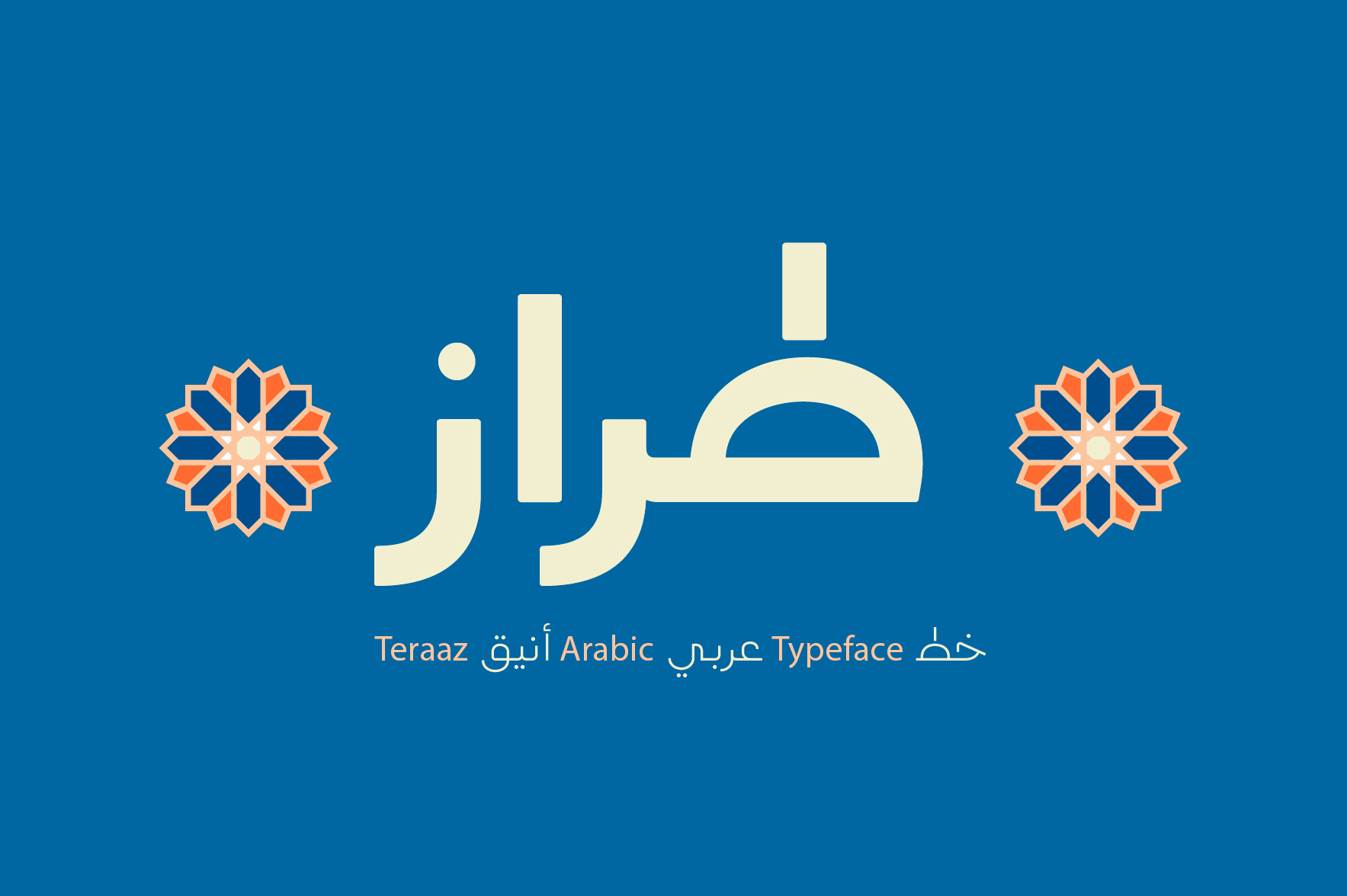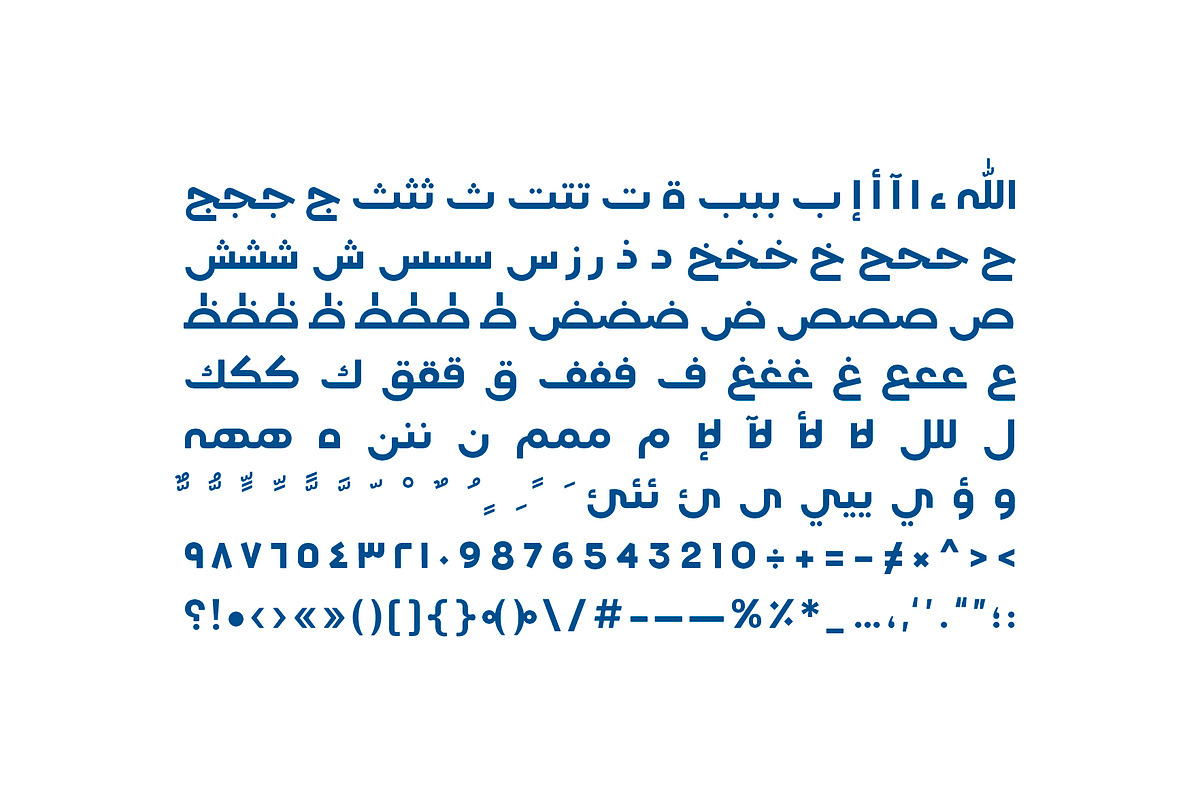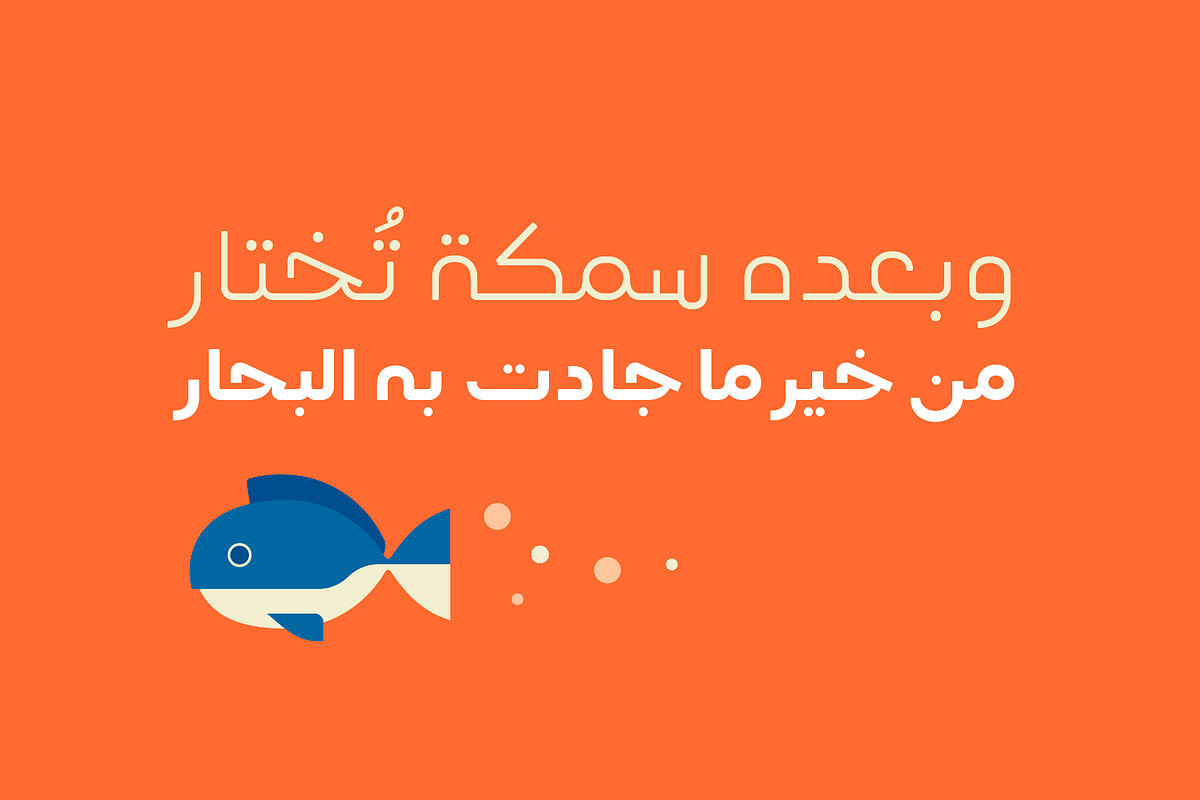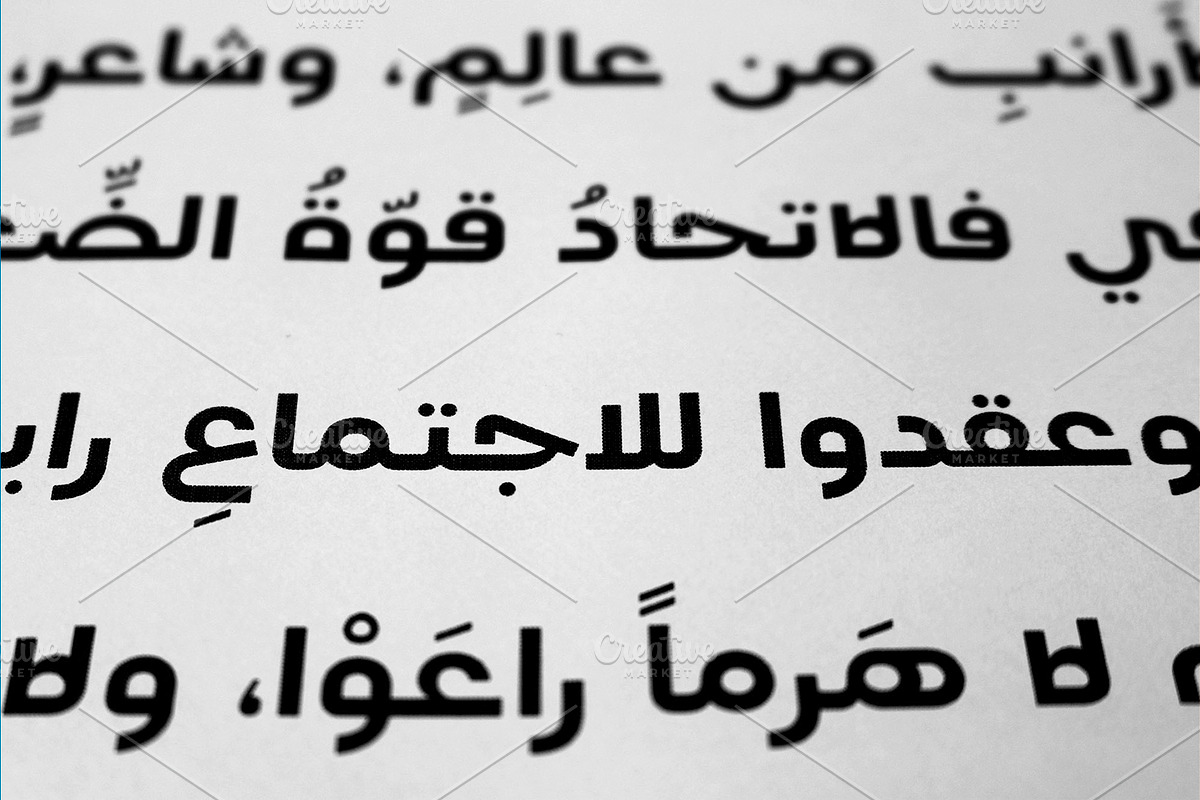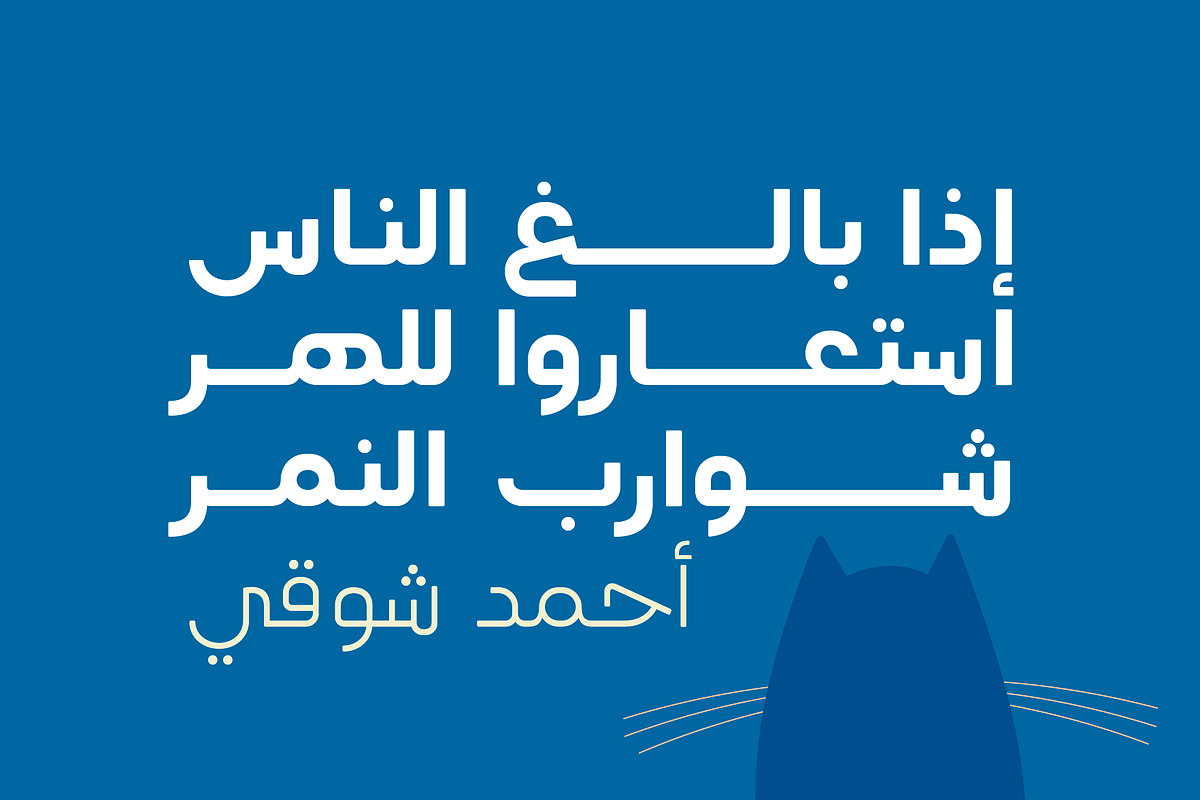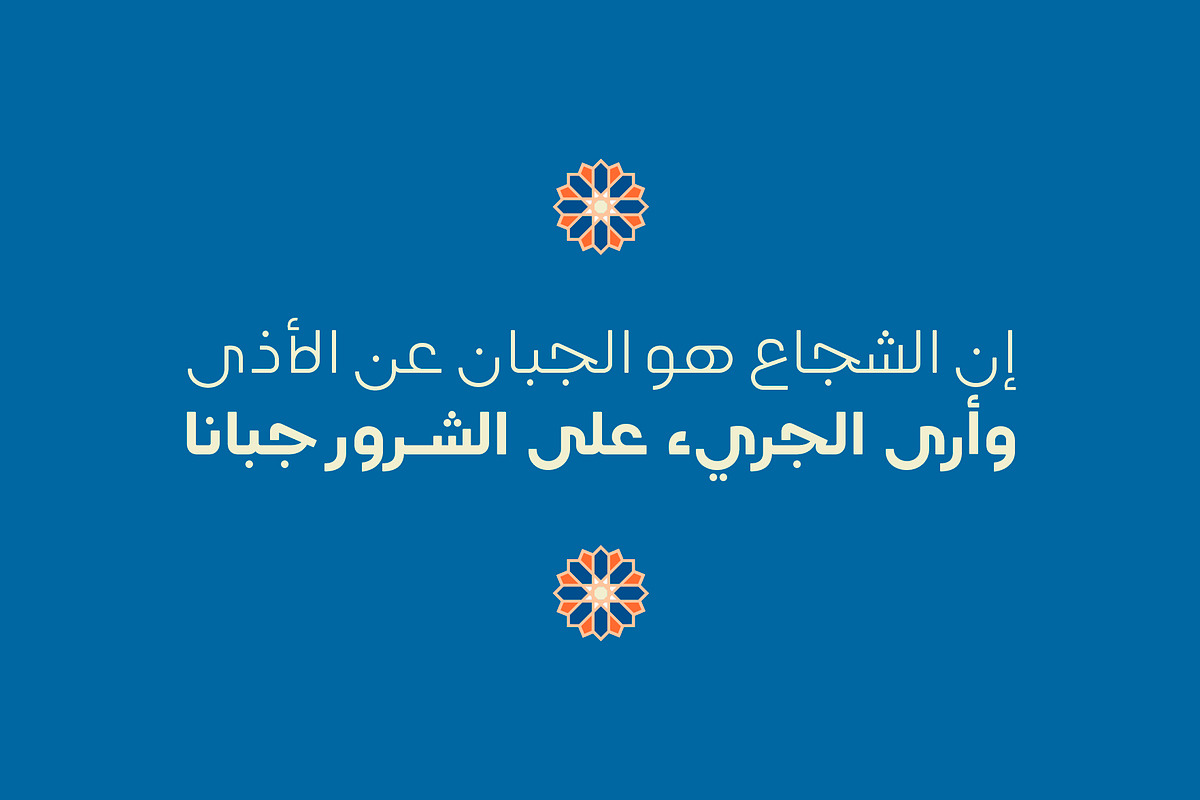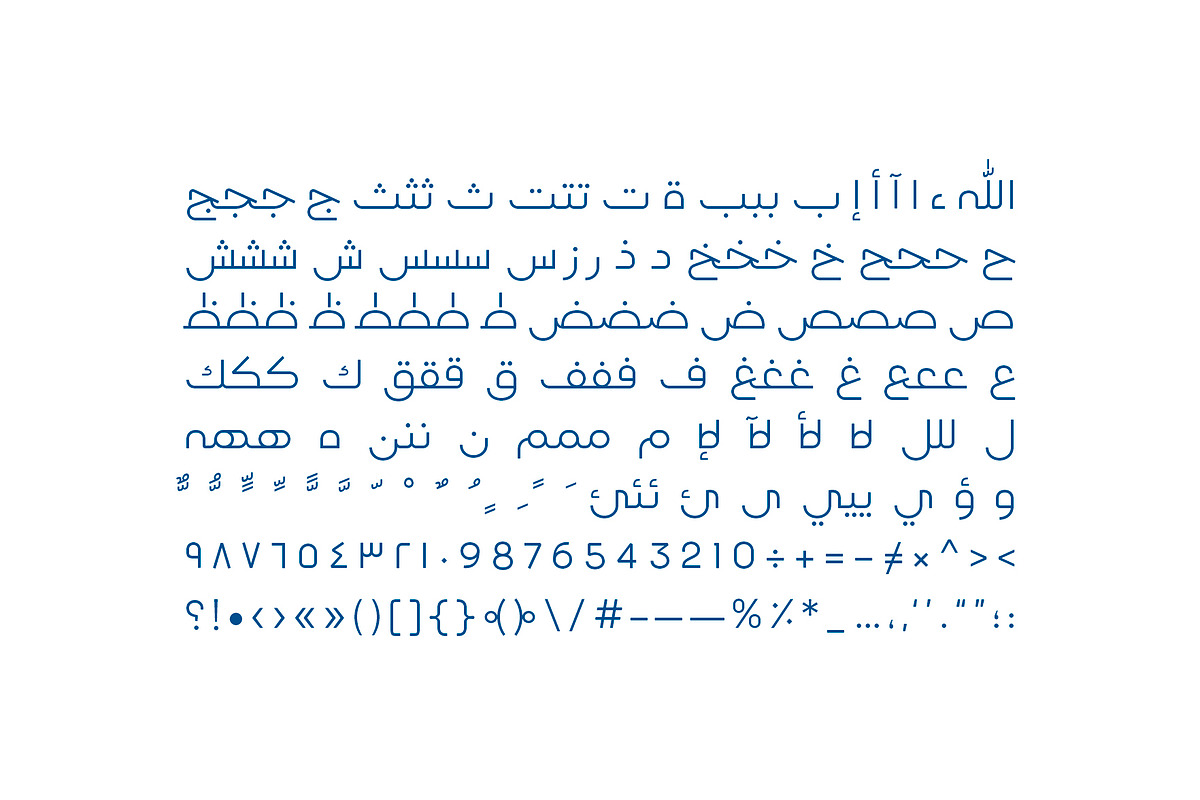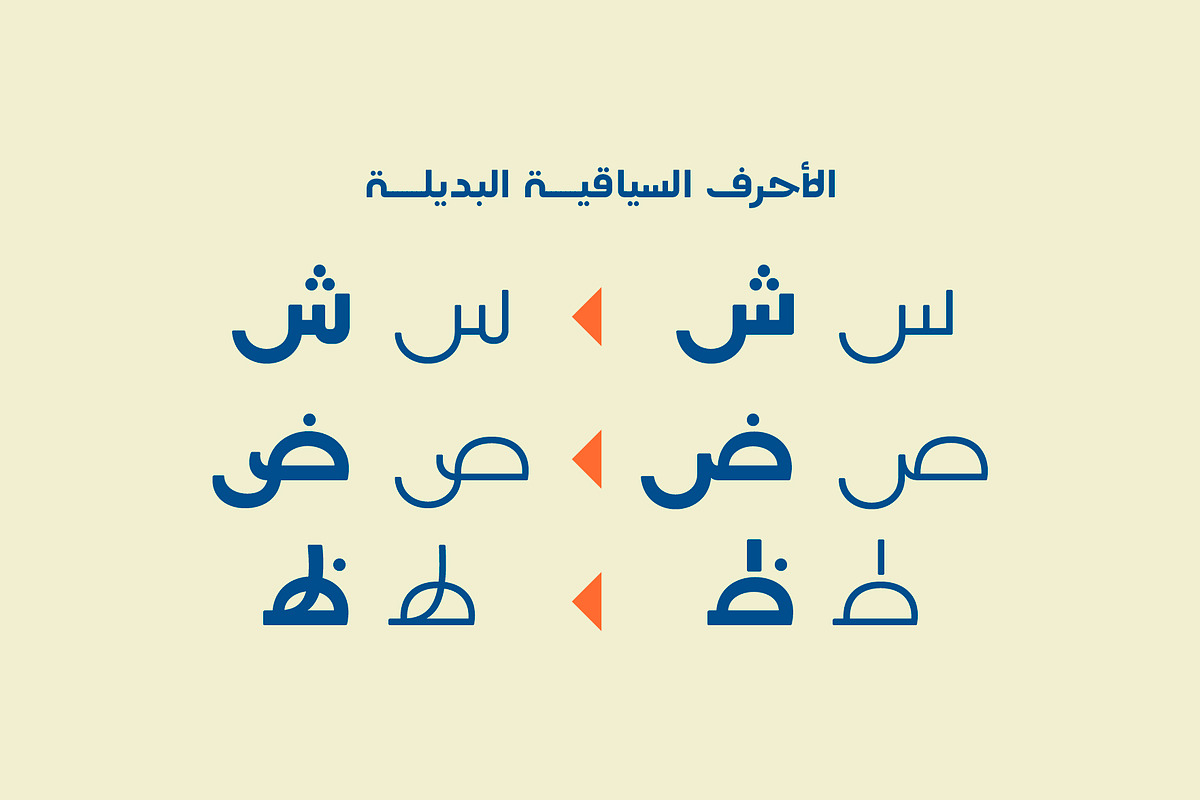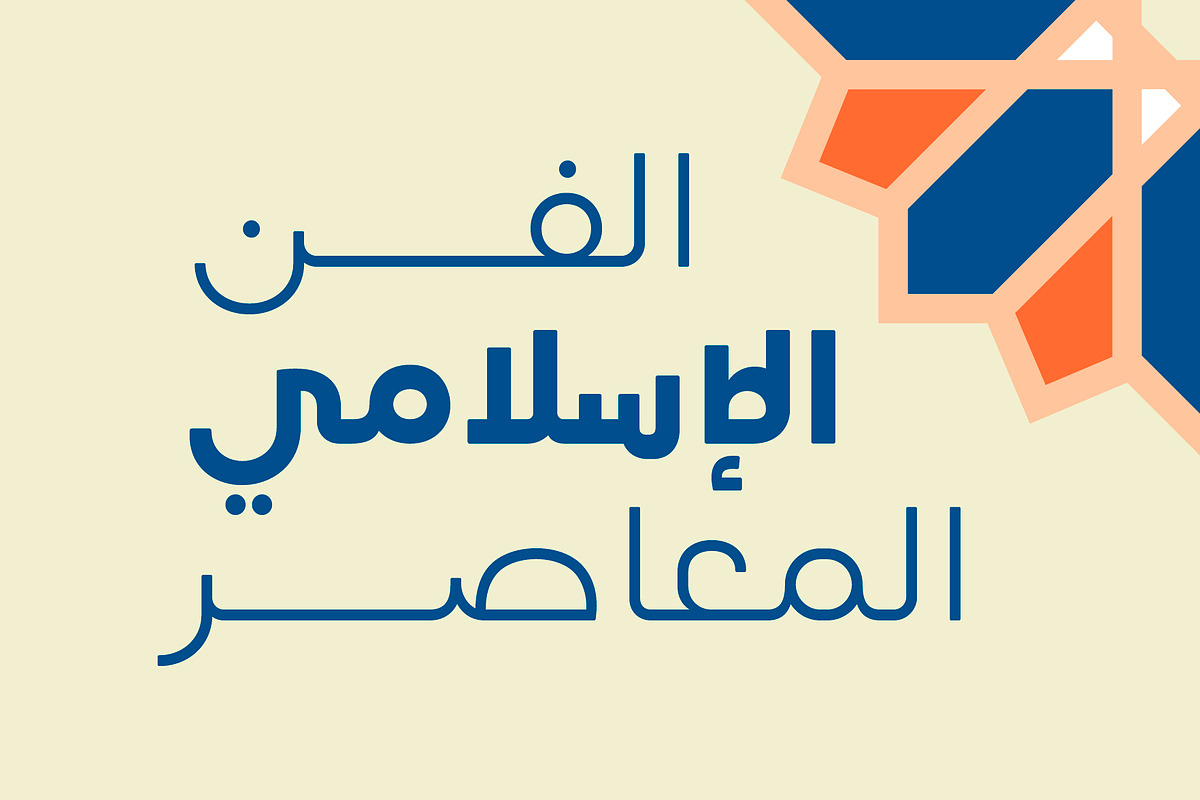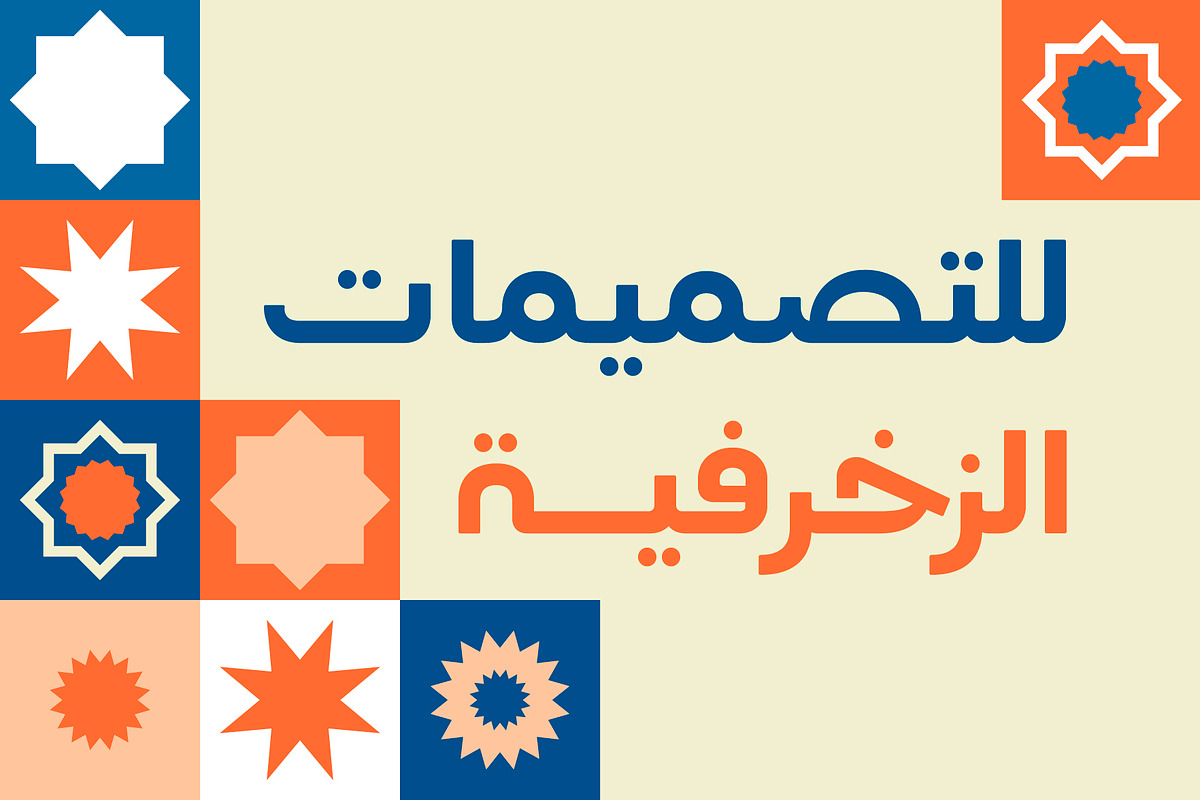
Teraaz - Arabic Typeface
Teraaz (which is the Arabic word for Style) is an Arabic display font that features a unique letterform structure. The design is based on a hybrid between various writing styles of Arabic such as Kufi, Maghrebi and Naskh. Teraaz typeface consists of two weights (Regular and Bold) and it is suitable for web, print and mobile applications.